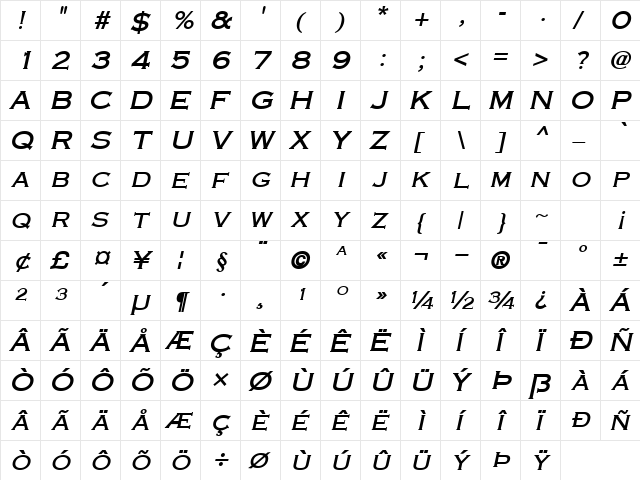
Engraver Bold Italic
Design Context for Engraver Typeface
Engraver is a composed and adaptable typeface that performs quietly and consistently across a wide range of design contexts. Its italic angle brings a sense of urgency and motion to the letterforms. Its bold stroke weight gives it real presence on the page.